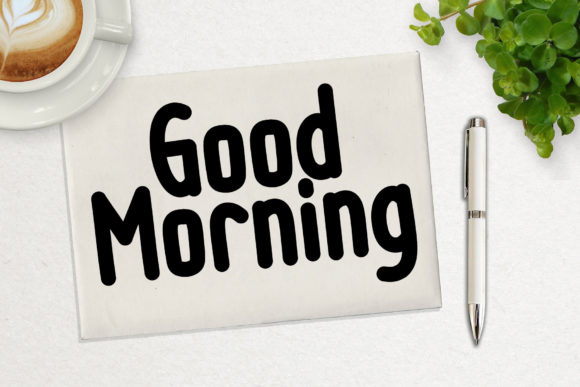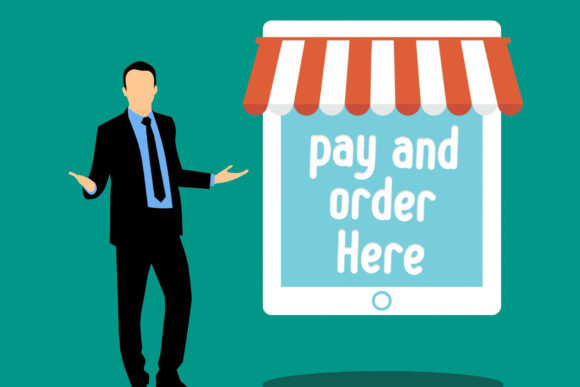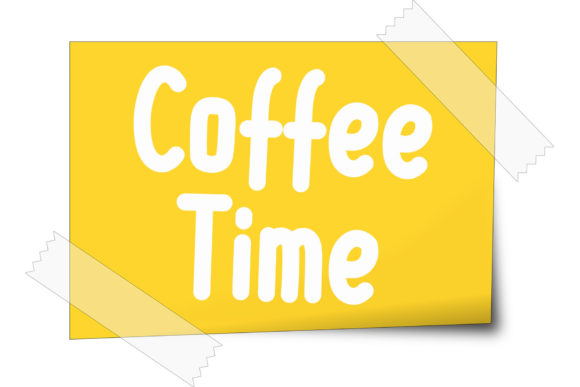
Introduction to Royalblue Font
Have you ever been working on a creative project and suddenly, the perfect font pops into your head? That’s exactly what happened to me when I stumbled upon the Royalblue Font. Its bold and unique handwritten style is not only beautiful but also incredibly easy to use, making it a valuable resource for any designer.
As a designer, you know how much a great font can make or break a project. And with the Royalblue Font, you can rest assured that your designs will stand out from the crowd. This high-quality font is perfect for mixing with various craft designs, and its transparent background makes it easy to use with any background image or color.
Key Features of Royalblue Font
- High-quality, professional font suitable for creative projects and design resources
- Features a transparent background, allowing for seamless integration into various design elements
- Designed to be highly versatile, suitable for a wide range of creative projects, from logos to typography
- Easy to customize and edit, making it a valuable design resource for designers and artists
Honest Review: Royalblue Font
The Royalblue Font is a great design resource, offering a high-quality, elegant look that’s perfect for any project. Here are some things that work well:
- Transparent background makes it easy to customize
- Only available in a limited number of font styles
- Not as versatile as some other fonts in terms of usage
Overall, I’m impressed with the Royalblue Font and would recommend it to anyone looking for a high-quality, elegant font for their next project. ⚠️ Just be aware of the limitations and use it accordingly. ✨
The Royalblue Font is a high-quality design resource ideal for creative projects that require a touch of elegance and sophistication. With its unique style and transparent background, this font is perfect for designers who want to add a professional touch to their work.
The Royalblue Font is ideal for use in corporate branding, marketing materials, and creative projects that require a touch of sophistication. It’s also a great choice for designers who want to add a unique and elegant touch to their work.